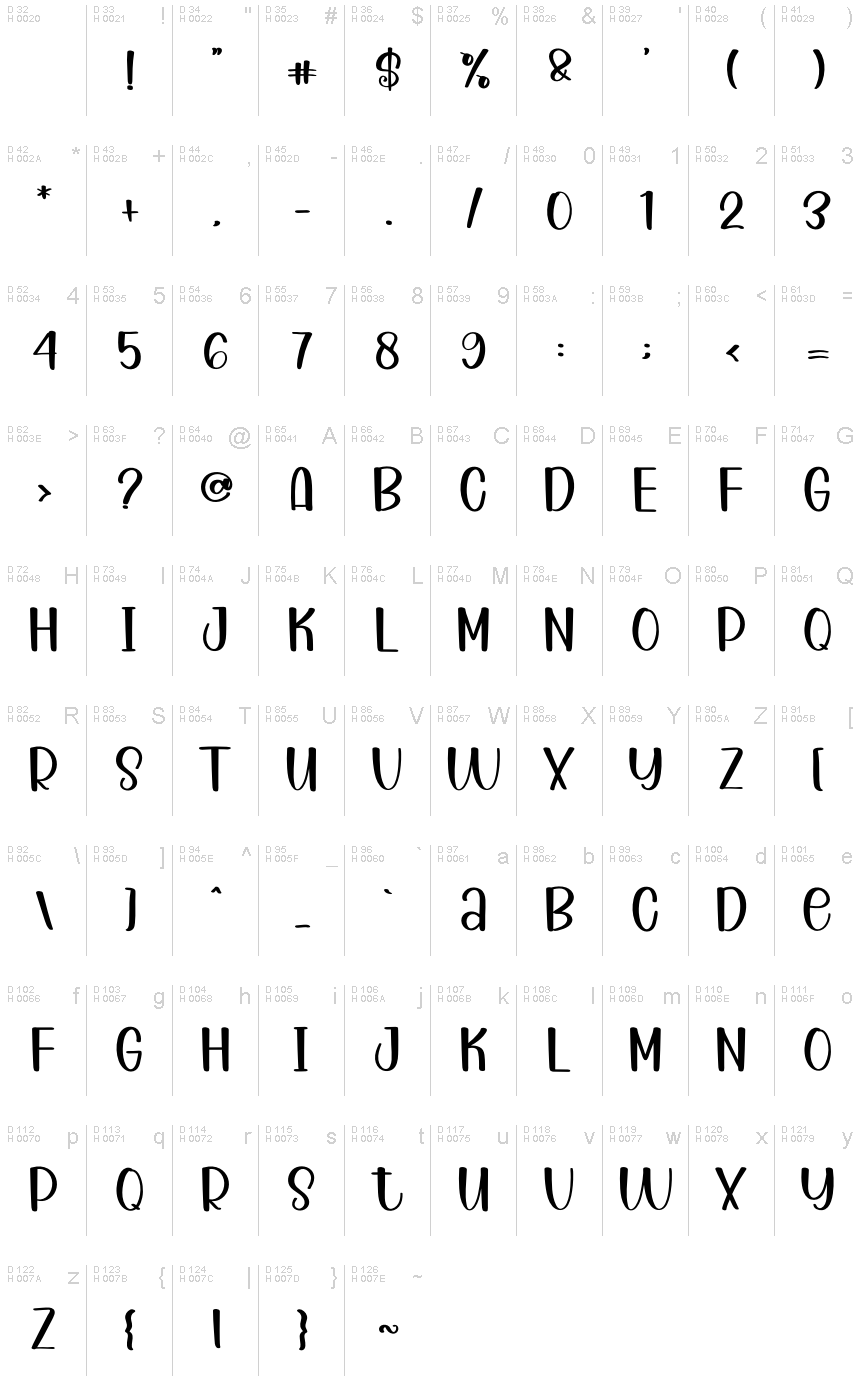
Krispy Burger
Krispy Burger font by Inermedia Studio is a playful display typeface with a retro-inspired cartoon style. The charm of mid-20th century designs and its whimsical nature make it casual and inviting, enhancing a friendly atmosphere. Its historical aesthetics and engaging appeal make this font suitable for creating fond memories.
Retro diner signage, vintage movie posters, or branding with nostalgic gestures can benefit from Krispy Burger. Try it in classic ads, snacks and toy packaging, light-hearted campaigns or interfaces seeking approachability. Yearbooks, restaurant menus, product labels across industries vibe well with this free font style description!